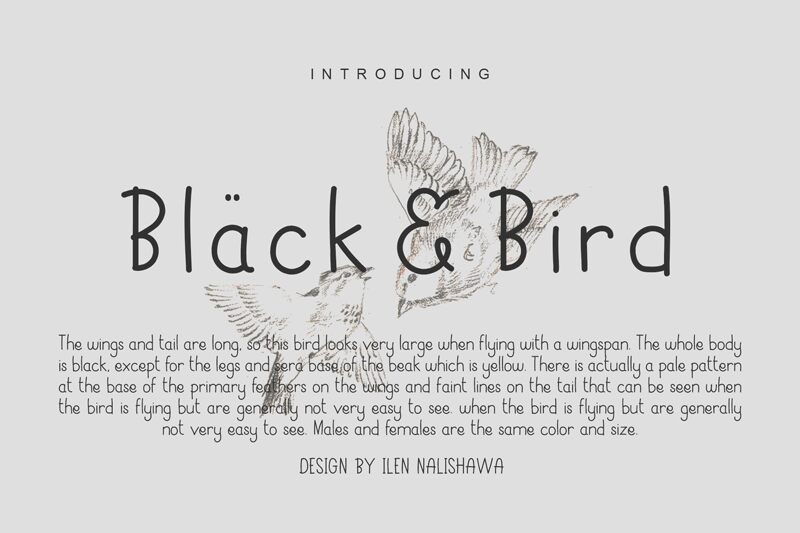
Black Bird Regular
Black & Bird handwritten form that has been tidied up and made into unique fonts and shapes, Black & Bird is also supported with punctuation and multi-language. please apply this font to reminisce about your childhood and school days ?